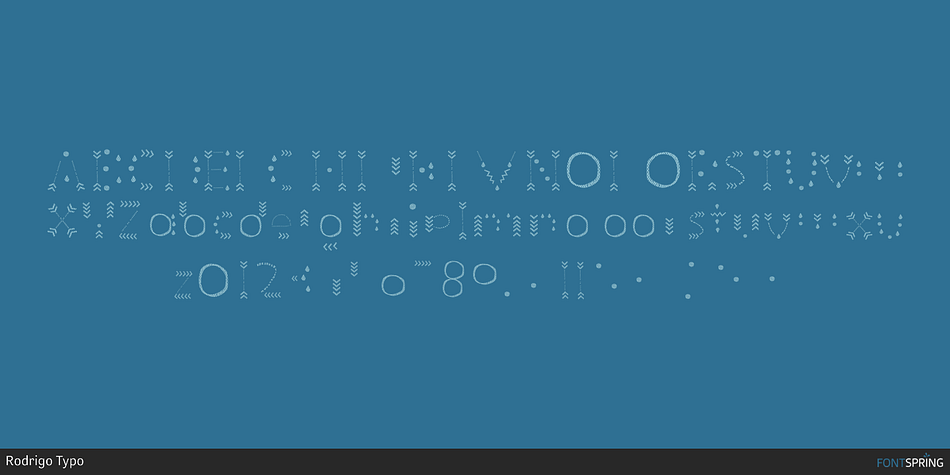
MartySpring Lines
MartySpring is a multiple classification font family. This typeface has five styles and was published by Rodrigo Typo.
Variants of Marty, to generate many more entertaining titles, playing with shapes, lines, also contains the Cyrillic alphabet was created with the intention of making a more visually friendly title, this typeface contains:
-MartySpring Regular
-MartySpring Lines
-MartySpring Elements
-MartySpring Ornaments
-MartySpring Words
Style Lines